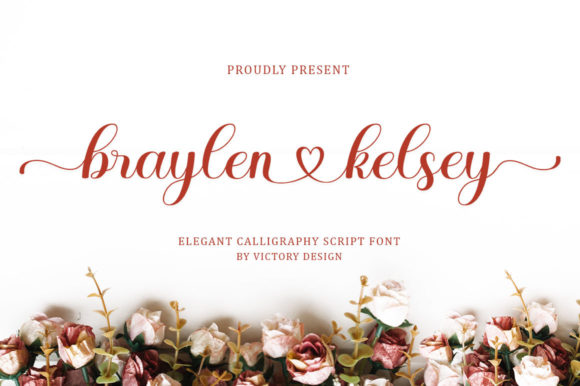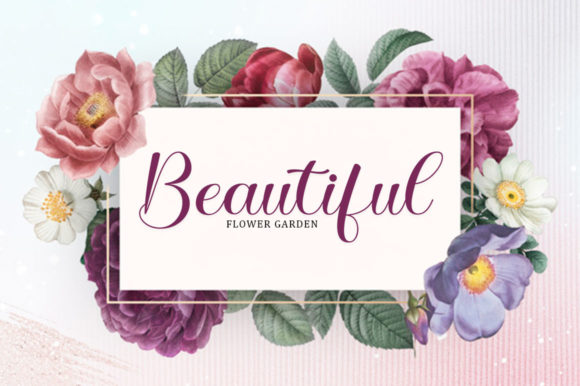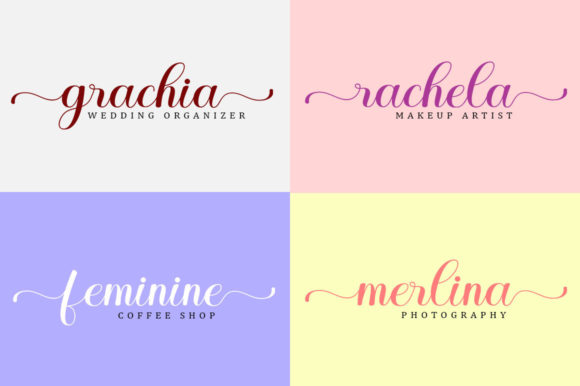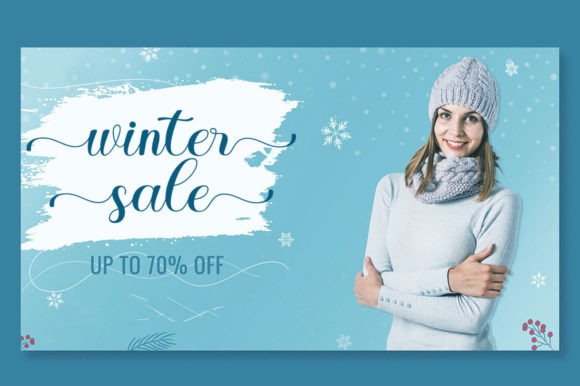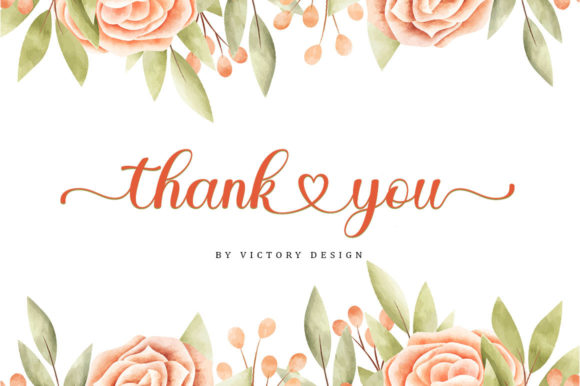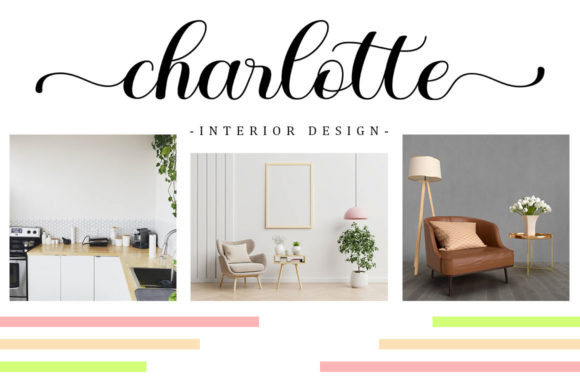
Braylen Kelsey Font
About Braylen Kelsey Font
Braylen Kelsey is an incredibly unique handwritten font. Masterfully designed to become a true favorite, this font has the potential to bring each of your creative ideas to the highest level!